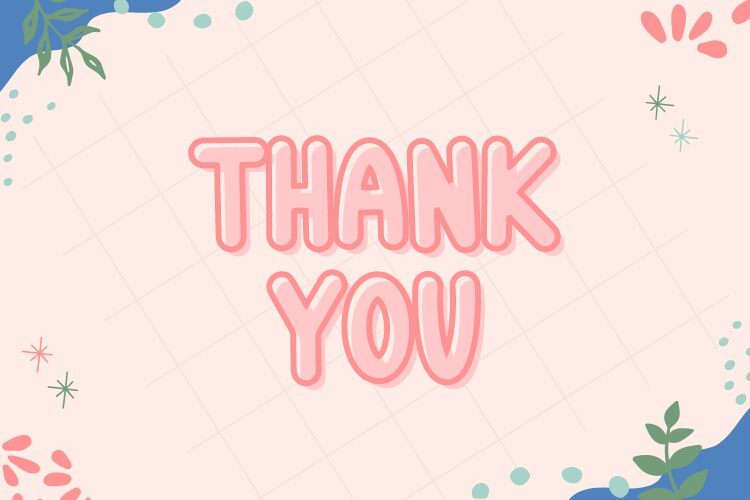
JOYFUNS
Joyfuns font by Folv is a lively display typeface with a bold, cartoon style that captures attention instantly. Its condensed form adds a playful twist, making it perfect for projects that seek to convey fun and creativity. The bold, bubbly characters are ideal for headlines, posters, and any design work where whimsy is key.
Whether you're designing children's books or creating standout marketing materials, the Joyfuns font enhances your visual storytelling with its unique personality. This free font is available for download, providing designers with an accessible tool to bring joy and excitement to their projects. Embrace the fun and download Joyfuns today!